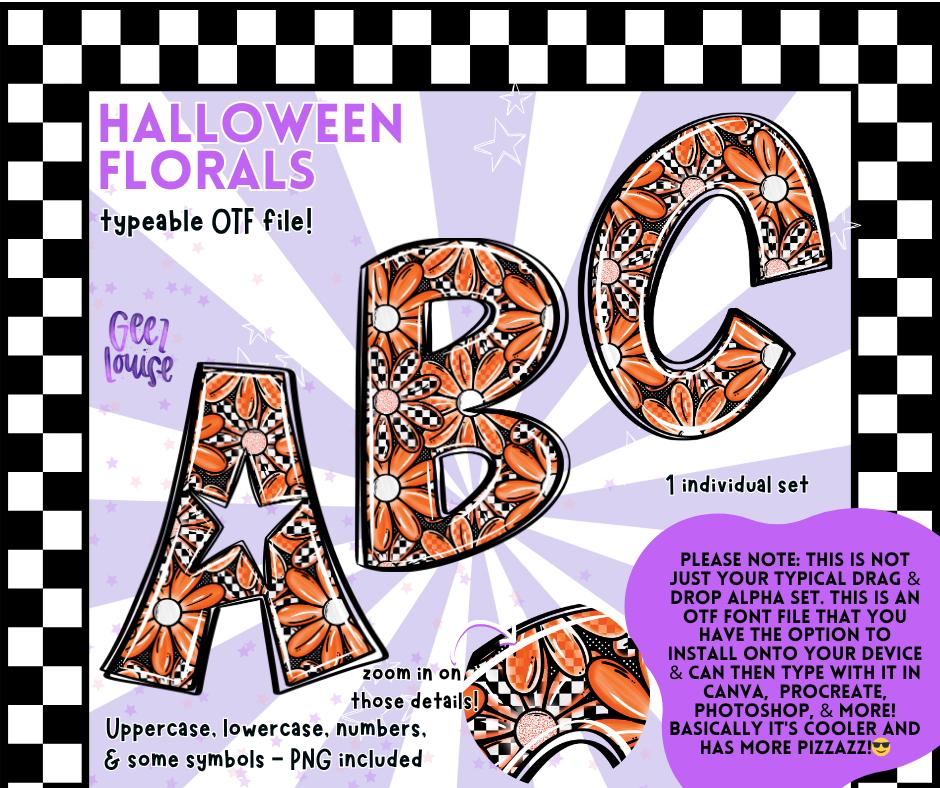
Halloween Florals Alpha – Orange Floral Checkered OTF Font & PNG Set
🎃🌸 Add a spooky-cute twist to your projects with the Halloween Florals Alpha – a vibrant orange floral design mixed with bold black-and-white checkers.
Perfect for Halloween invites, seasonal merch, social media graphics, and alternative floral designs.